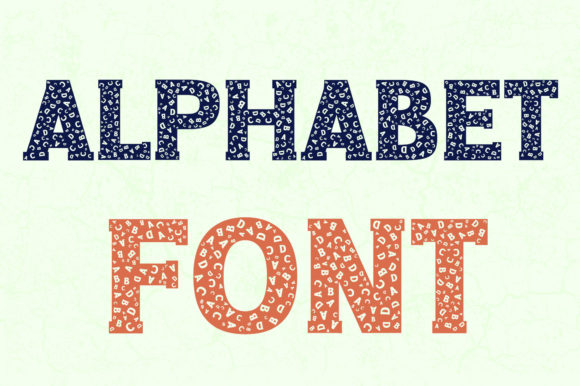
The Ultimate Guide to Alphabet Font: Elevate Your Designs with this Bold and Neat Display Font
I’ll never forget the time I was working on a project for a client who needed a bold and eye-catching font to make their brand stand out. I had spent hours scouring the internet for the perfect font, but nothing seemed quite right. That was until I stumbled upon Alphabet Font. It was love at first sight! ✨ This stunning display font has been a game-changer for my designs, and I’m excited to share its awesomeness with you.
An Honest Review of Alphabet Font
- ✅ Bold and attention-grabbing: Alphabet Font is perfect for making a statement with your designs.
- ✨ Neat and clean lines: The font’s sleek design makes it easy to read and looks amazing on any background.
- 🎨 Versatile: Whether you’re designing a logo, poster, or social media graphic, Alphabet Font adapts seamlessly to any project.
While Alphabet Font is an amazing addition to any design library, there are a few things to keep in mind: 🤔
- ⚠️ Limited use in body text: Due to its bold nature, Alphabet Font is best used for headings or titles, rather than large blocks of text.
- ⚠️ Some glyphs may not be available: As with any font, some special characters or glyphs might not be included, so be sure to check the font’s specifications before using it.
The Backstory of Alphabet Font
Legend has it that the designer behind Alphabet Font was inspired by the simplicity and elegance of urban typography. They wanted to create a font that would be both bold and beautiful, with clean lines and a modern feel. And so, Alphabet Font was born! 🎉
| Font Name | Alphabet Font |
| Author | Vladimir Carrer |
| What is Alphabet Font best used for? | Alphabet Font is perfect for headings, titles, and bold statements. It’s not recommended for large blocks of body text. |